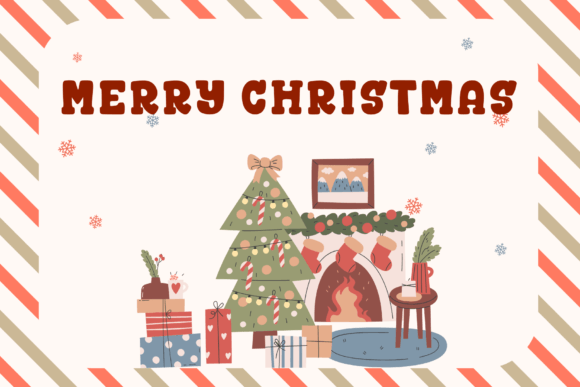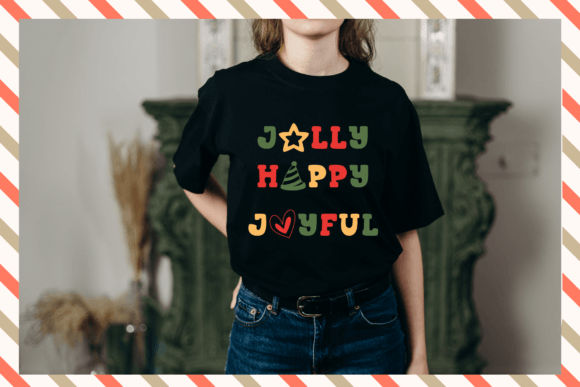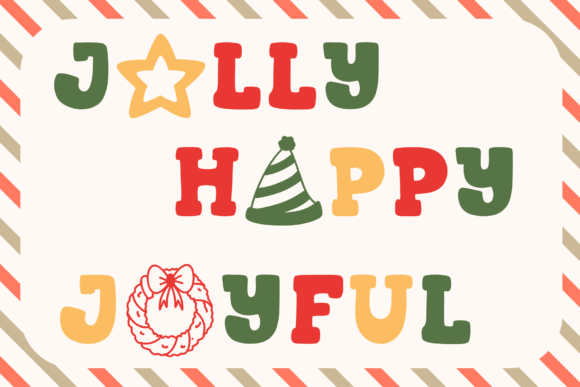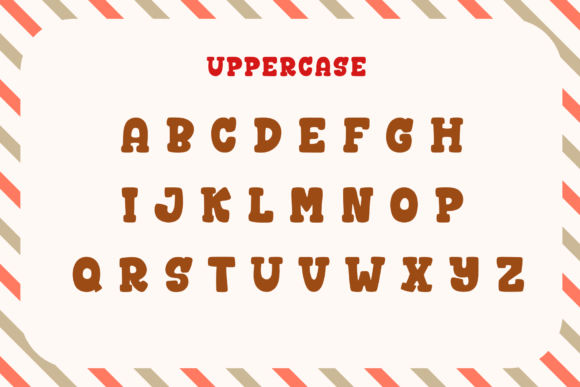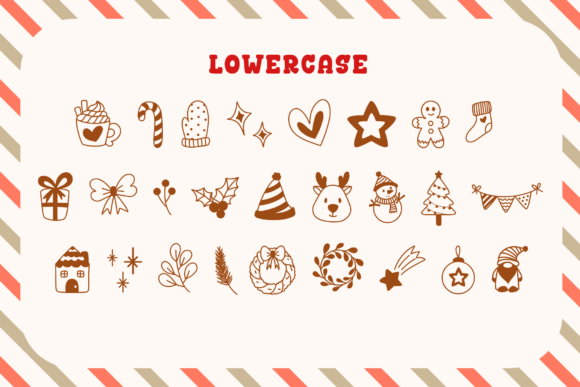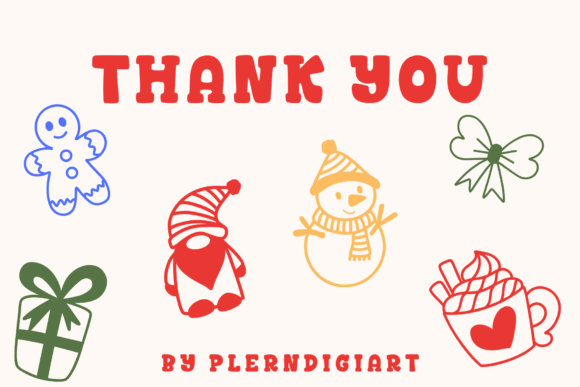
Christmas Party Font: The Ultimate Festive Font for Your Holiday Designs
Are you looking for a font that captures the essence of the holiday season? Look no further than the Christmas Party font! This adorable font is perfect for designers and crafters who want to add a touch of festive fun to their projects. In this article, we’ll dive into the delightful design elements of Christmas Party font, its features, and how you can use it to make your holiday designs shine.
A Font that Exudes Adorable Charm
Christmas Party font is a delightful font that exudes adorable charm and is filled with delightful design elements. Its vibrant and irresistibly cute atmosphere is characterized by its simplicity and cuteness that is hard to resist. The font’s design is perfect for creating festive and fun designs that are sure to bring a smile to anyone’s face.
Delightful Design Elements
So, what makes Christmas Party font so special? Here are some of its delightful design elements:
- Unique lettering style: The font features a unique lettering style that is reminiscent of handwritten holiday cards.
- Festive flair: The font includes festive design elements, such as holly leaves, snowflakes, and Christmas trees, that add a touch of holiday cheer to your designs.
- Playful details: The font’s playful details, such as the use of red and green colors, add a fun and whimsical touch to your designs.
Features of Christmas Party Font
Here are some of the key features of Christmas Party font:
- Easy to read: Despite its playful design, Christmas Party font is easy to read, making it perfect for use in a variety of design projects.
- High-quality design: The font is designed with high-quality graphics, ensuring that it looks great in any design.
- Versatile: Christmas Party font can be used in a variety of design projects, from holiday cards and invitations to website graphics and social media posts.
Christmas Party font is a delightful font that is sure to add a touch of festive fun to your holiday designs. With its unique lettering style, festive design elements, and playful details, it’s the perfect font for designers and crafters who want to create fun and engaging holiday designs. Whether you’re creating holiday cards, website graphics, or social media posts, Christmas Party font is sure to bring a smile to anyone’s face.